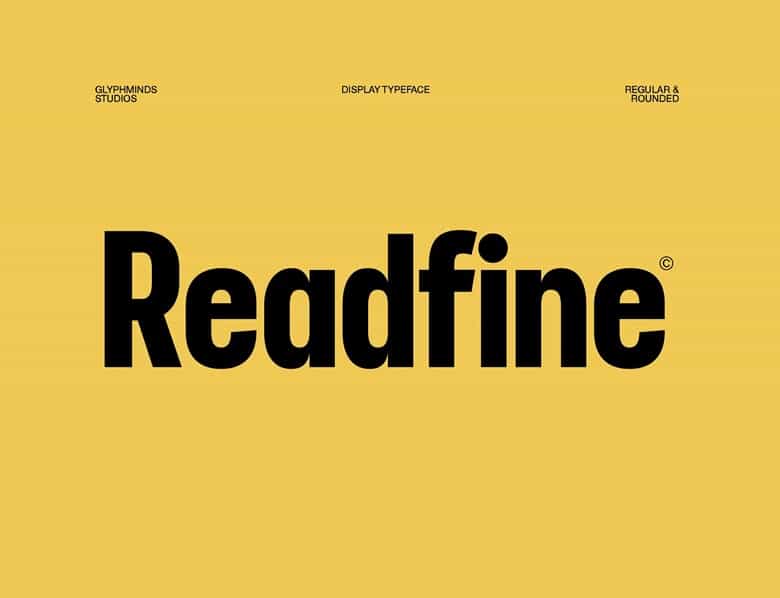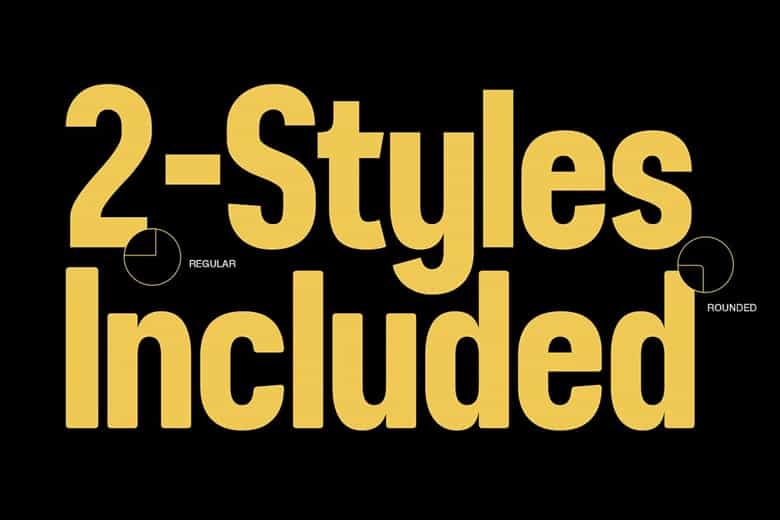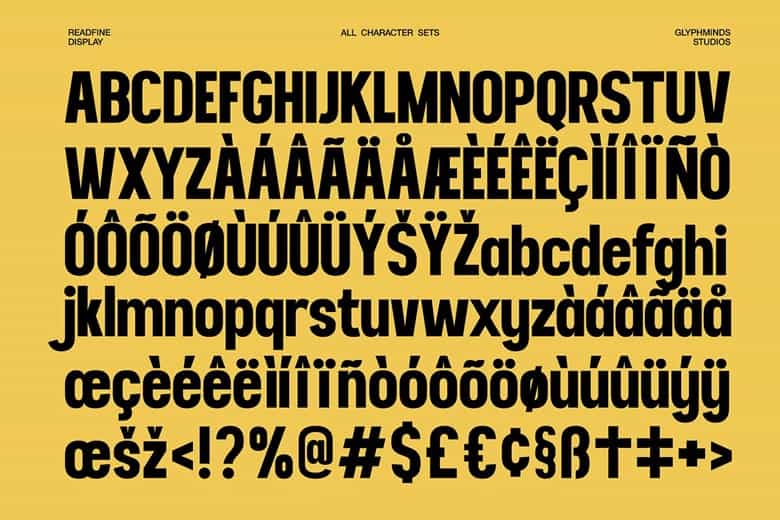
Readfine is a striking and contemporary sans serif display font intended for use to stand out. Clean and clearly defining shapes make Readfine a versatile font, which can help add sophistication to any given design. Suitable for logos, posters and headlines, as well as branding, this font gives any text a unique look that can be easily noticed in both print and online media.